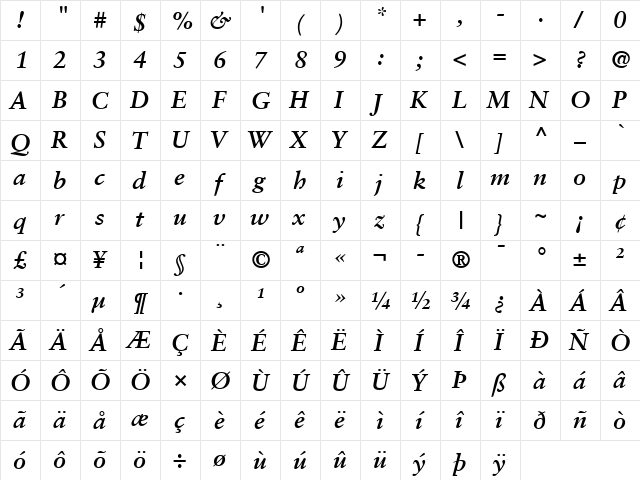
Sabon LT Bold Italic Font Preview
Design Context for Sabon LT Typeface
Sabon LT takes a measured approach to typography — its balanced proportions and neutral character make it a reliable workhorse for both digital and print work. The dynamic lean of this cut emphasises speed and emphasis in any layout. The heavy weight commands attention and anchors typographic hierarchies.
Pro Tip: Try Sabon LT for annotation and caption copy alongside an upright companion — the contrast in angle creates a dynamic but ordered typographic system.